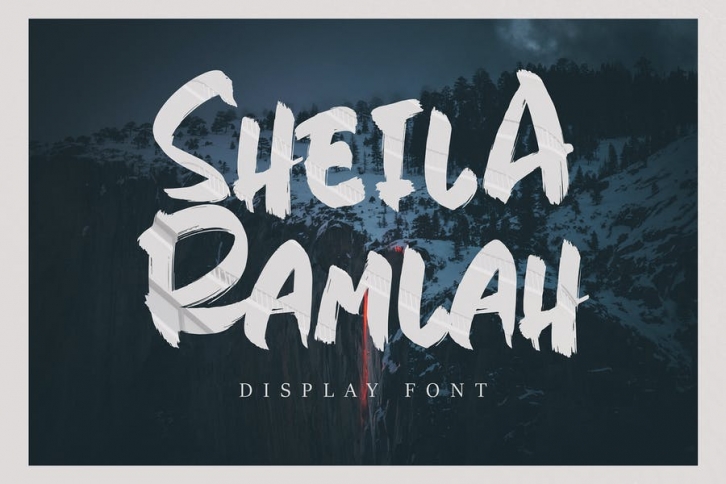
Sheilaramlah font with new style, this font will perfect for many different project ex: quotes, logo, blog header, poster, banding, fashion, apparel, letter, invitation, stationery, etc...